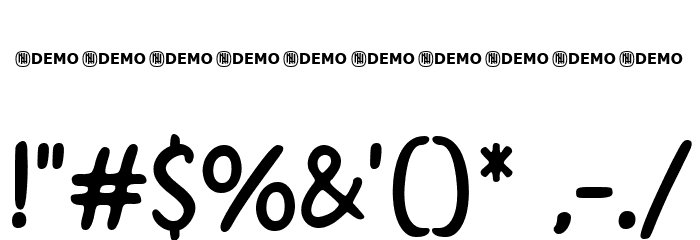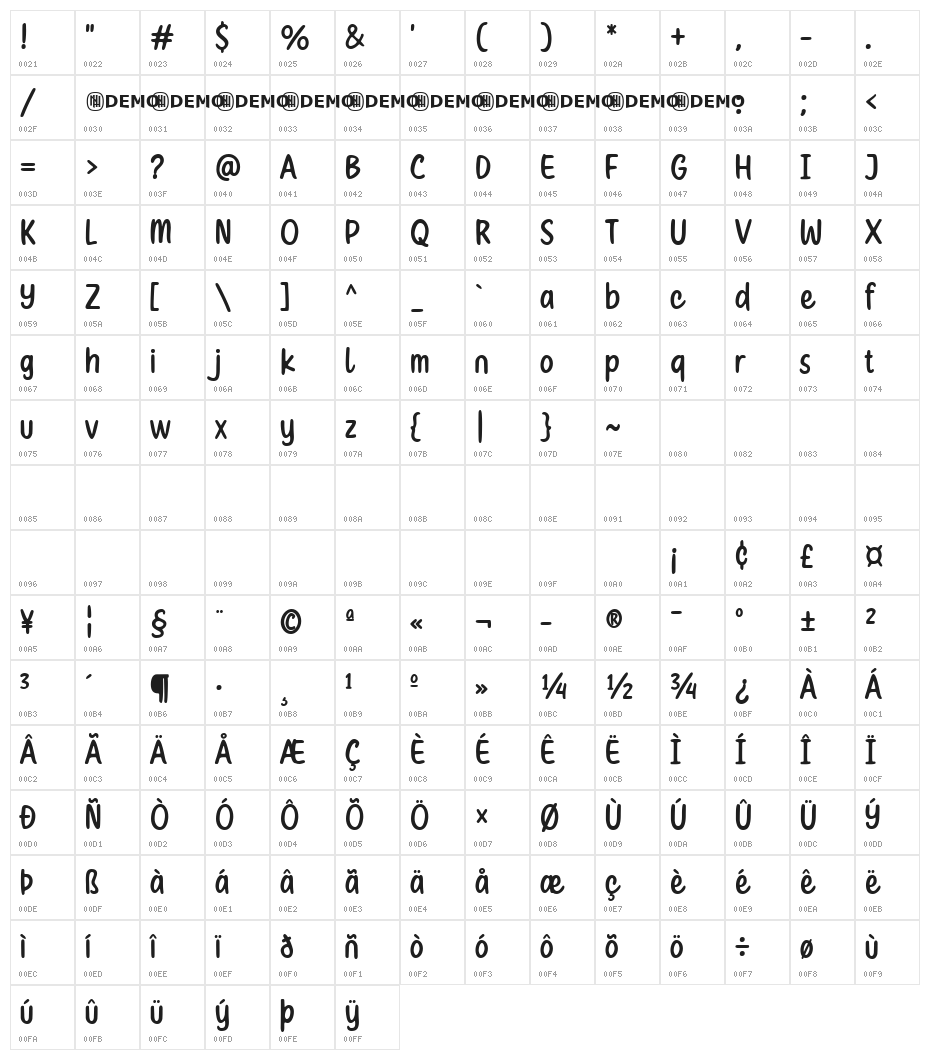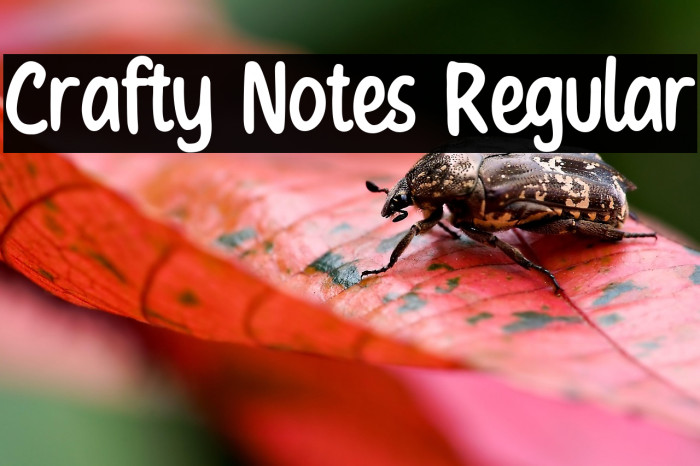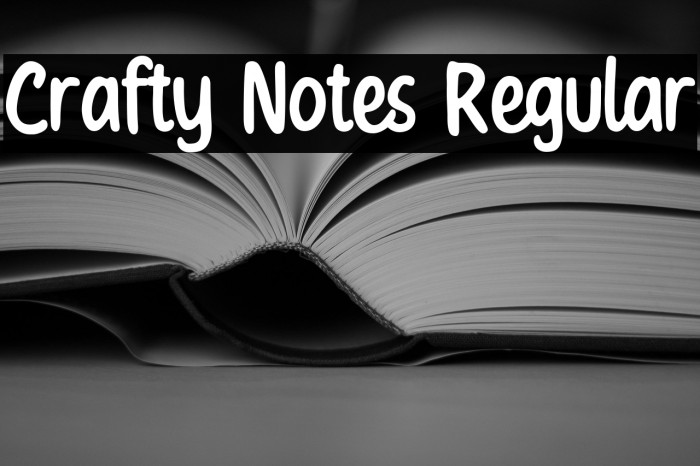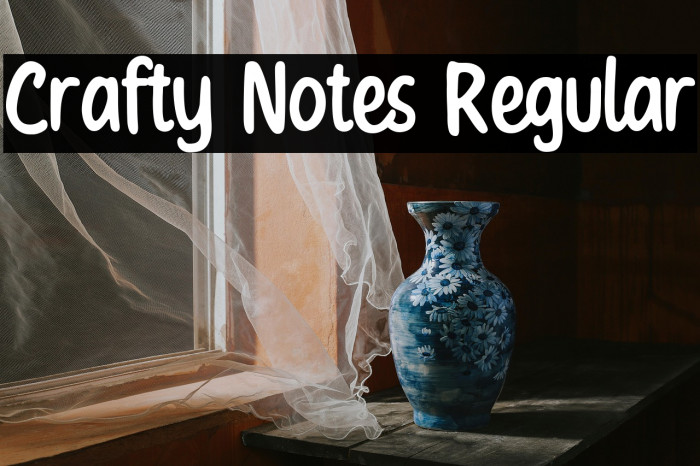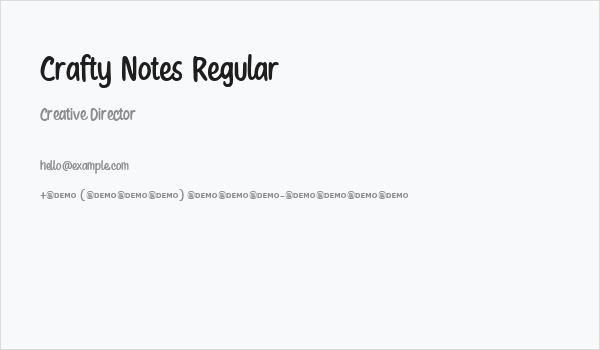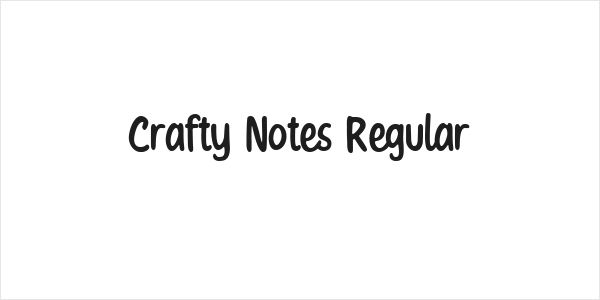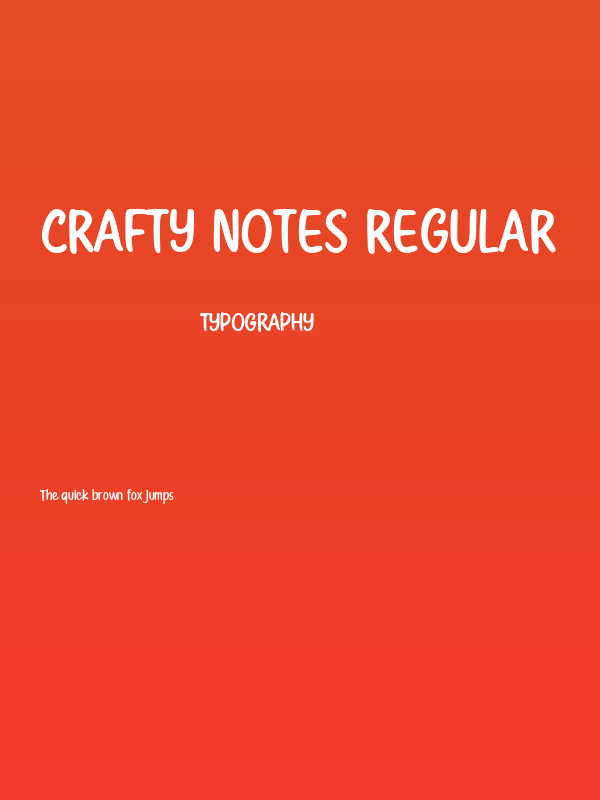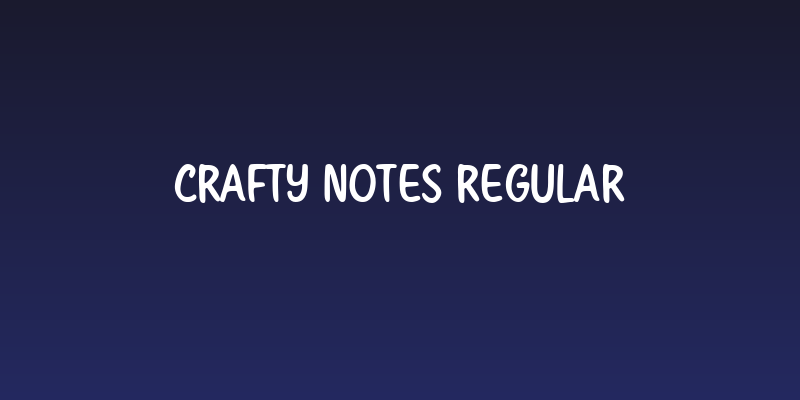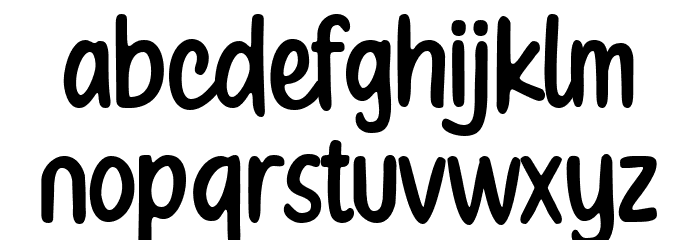
Crafty Notes Regular Font
Crafty Notes Regular Description
This playful and whimsical font features rounded, bold characters that exude a sense of fun and creativity. The letters are slightly irregular, giving them a hand-drawn appearance that adds a personal touch to any design. The uppercase and lowercase letters maintain a consistent style, with smooth curves and a friendly demeanor. The numerals and special characters are equally charming, making this font versatile for various uses. Its boldness ensures readability while the unique style captures attention, making it ideal for creative projects.
Overall StylePlayful
Proposed ProjectsIdeal for children's books, greeting cards, playful branding, and creative posters.